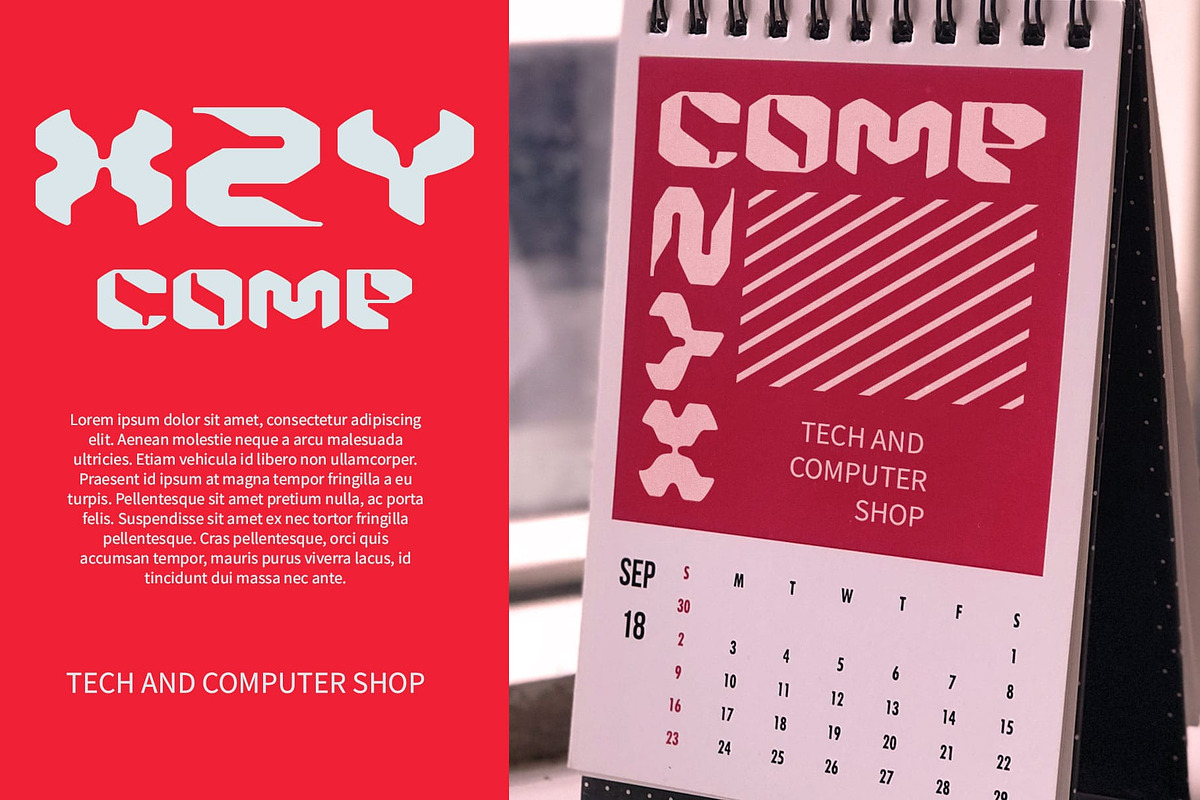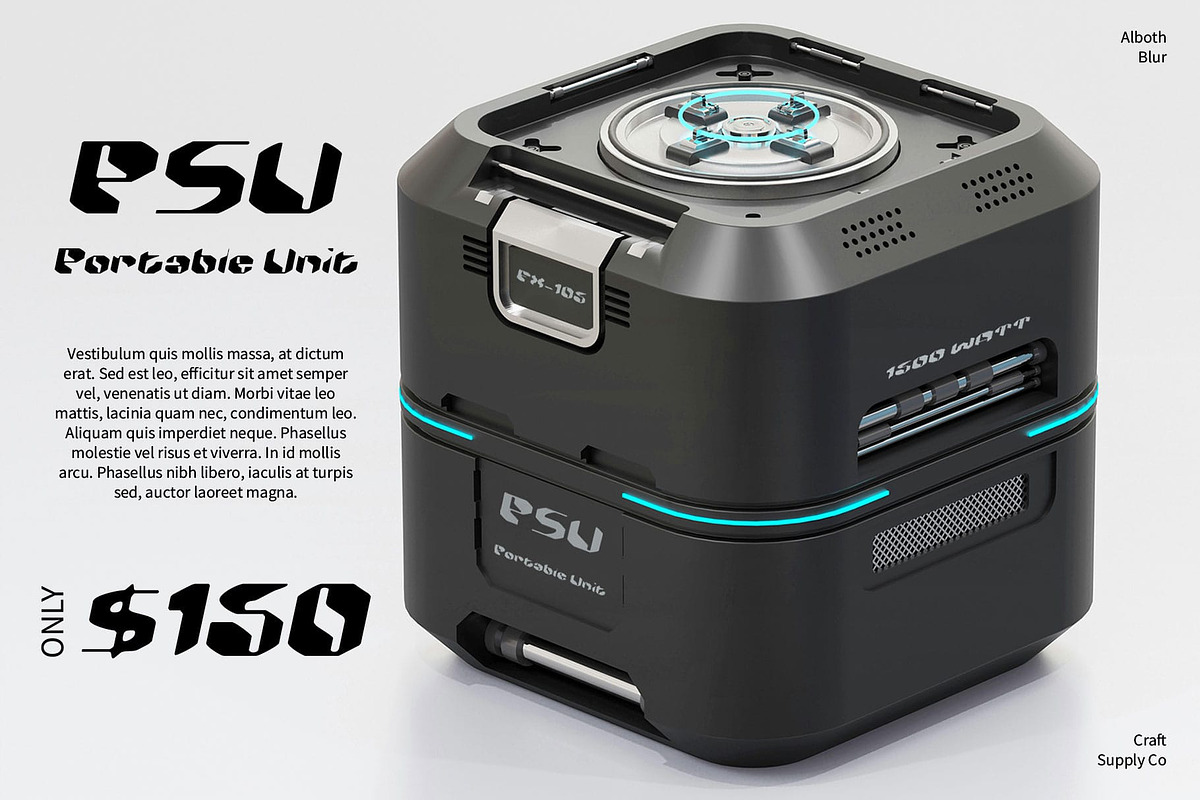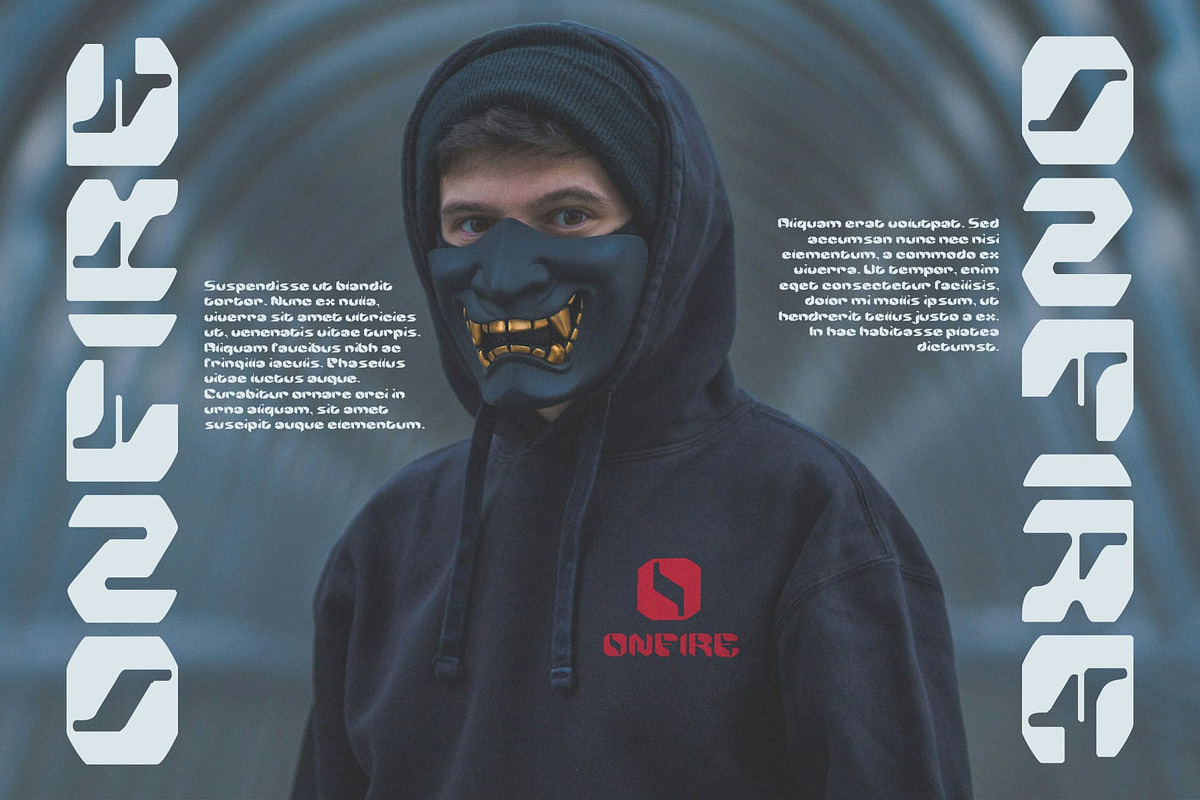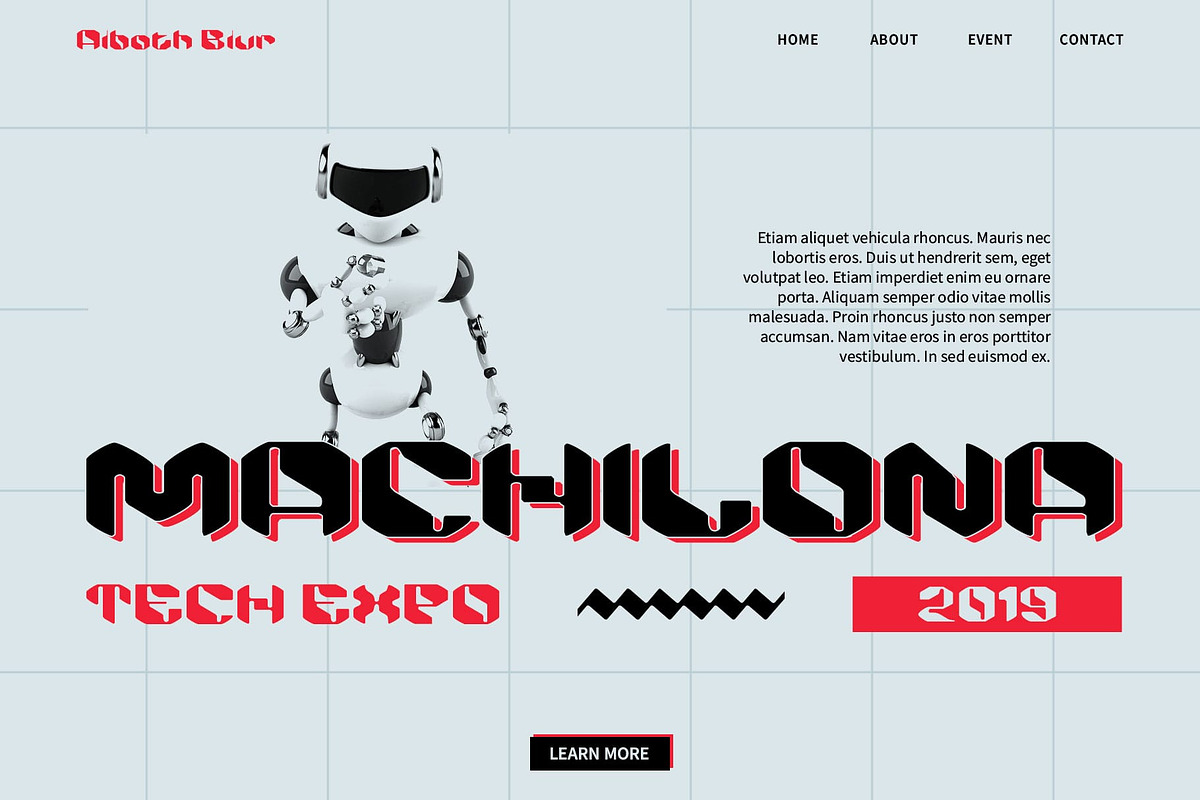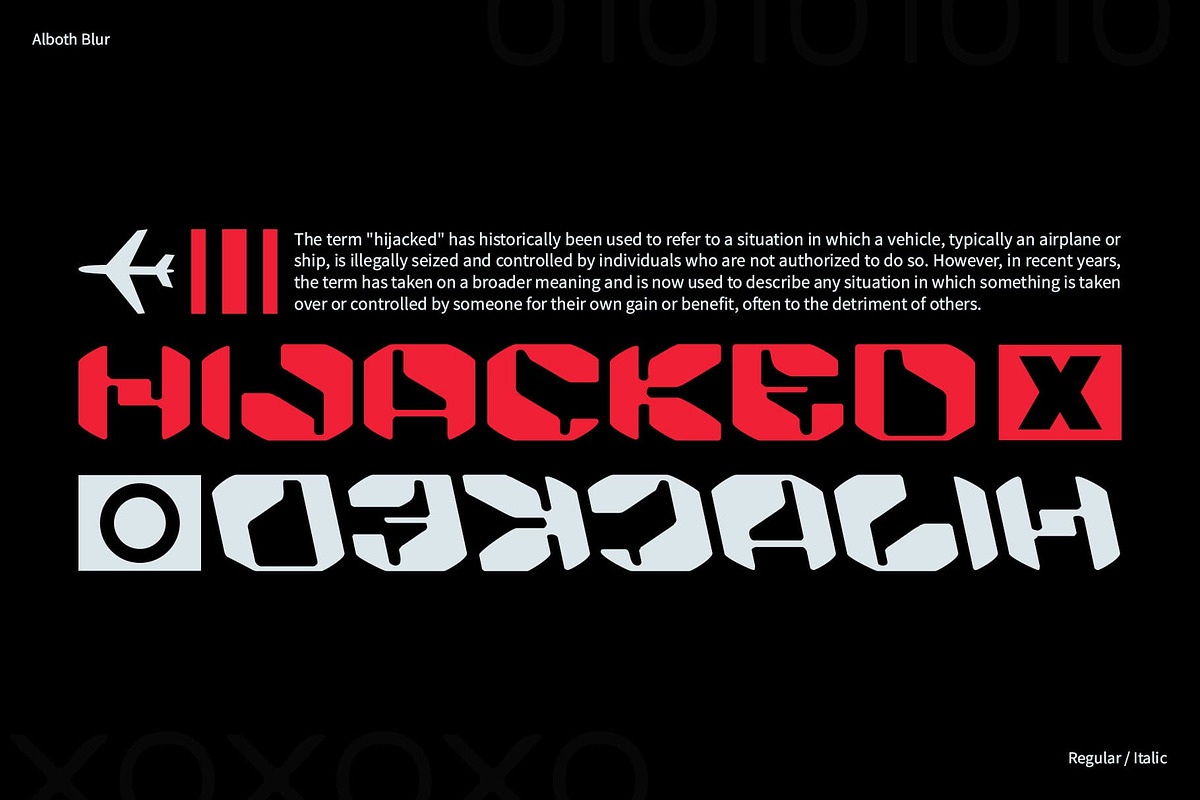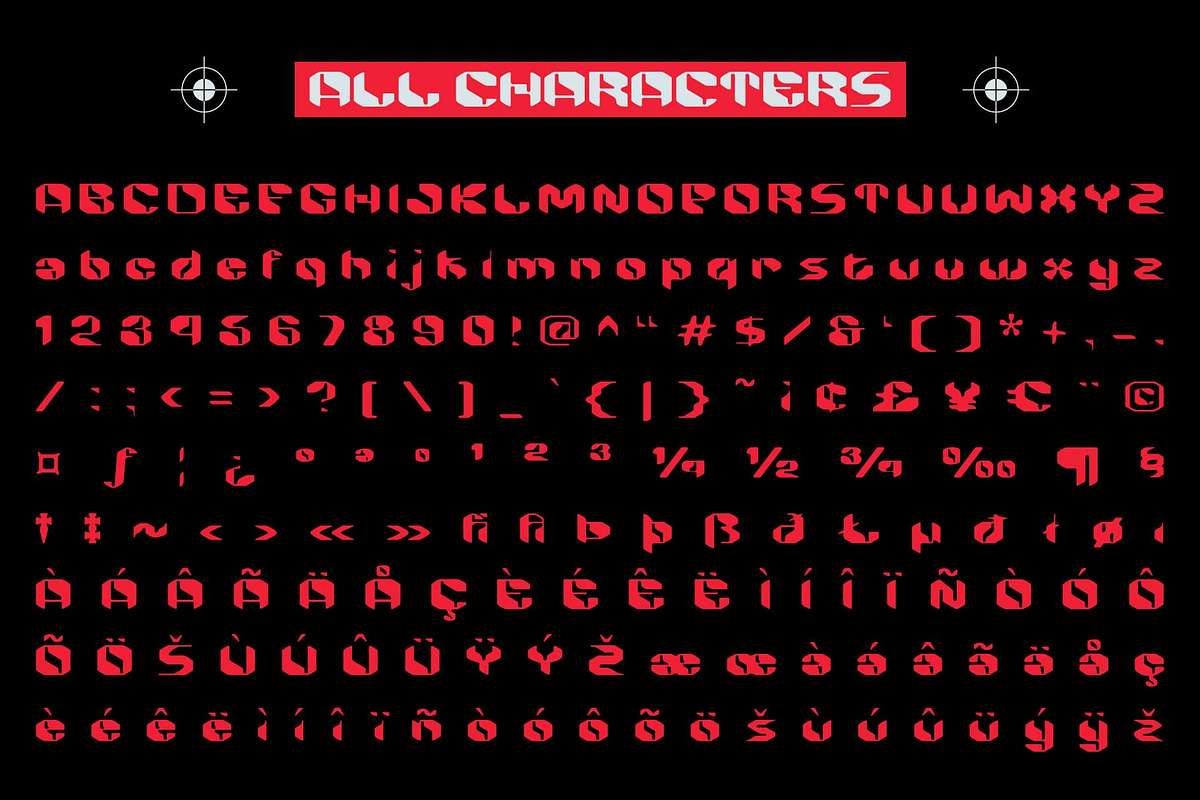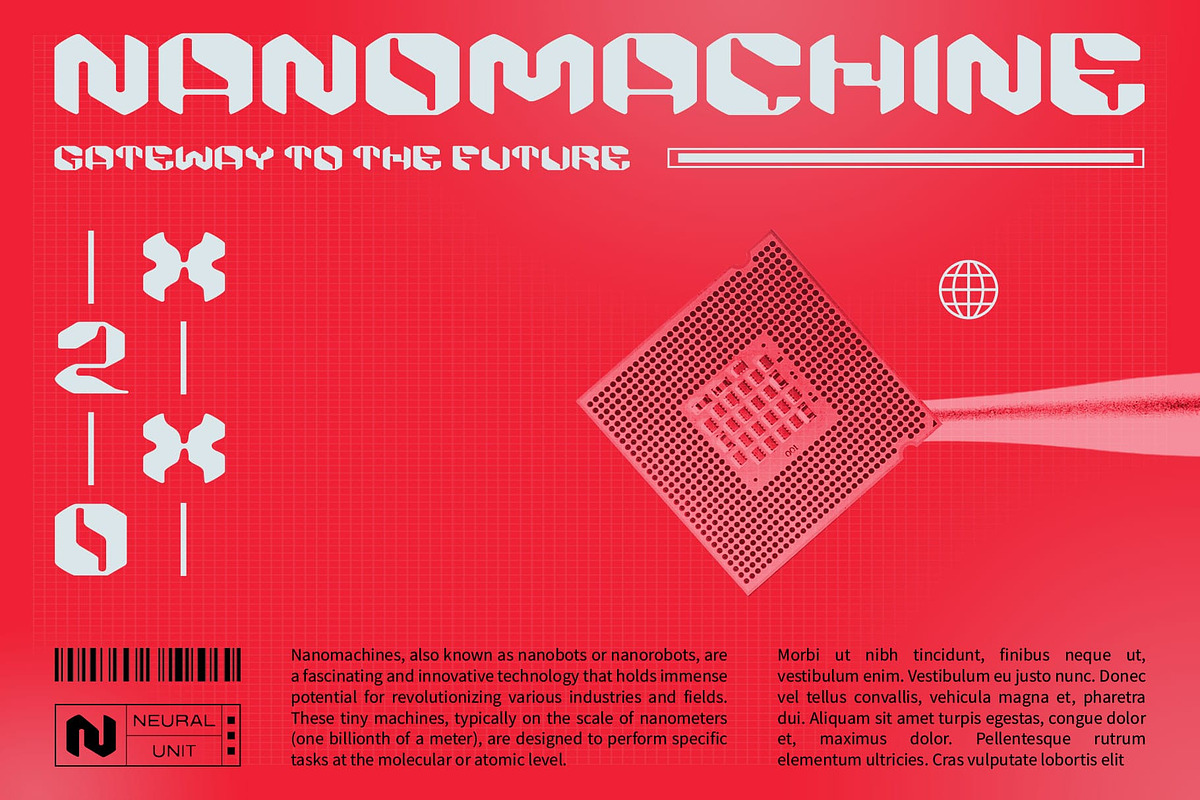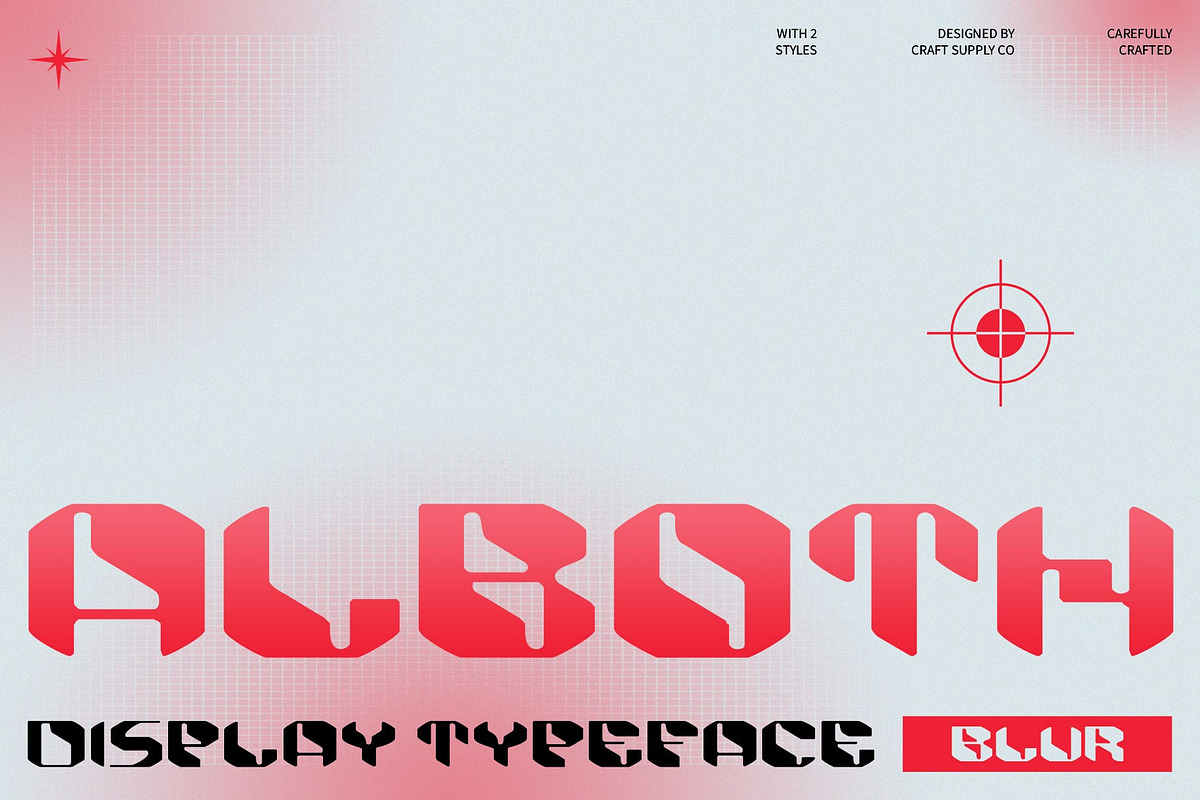
Alboth Blur
Alboth Blur: Futuristic and Dynamic
Modern and Innovative Look
Alboth Blur is a futuristic display font with a blur effect that offers a modern and innovative look, creating a dynamic and forward-thinking impression. The blur effect adds a unique artistic element, making it ideal for designs aiming to capture attention and convey a sophisticated, futuristic style.
Perfect for Eye-Catching Designs
With its blur effect and futuristic design, Alboth Blur is perfect for eye-catching designs. It ensures your message stands out with a cutting-edge aesthetic, making it suitable for posters, advertisements, and other creative projects.
Ideal for Posters and Advertisements
Alboth Blur enhances posters and advertisements with its bold and distinctive appearance. Its futuristic style and blur effect create a striking visual impact, ensuring your designs grab attention and convey a modern, innovative vibe.
Versatile for Creative Projects
Versatile and unique, Alboth Blur adapts seamlessly to various creative projects. Whether used in digital or print media, this font provides a futuristic and artistic touch that enhances the overall visual appeal of your work.
- Alboth Blur Regular
- Alboth Blur Italic